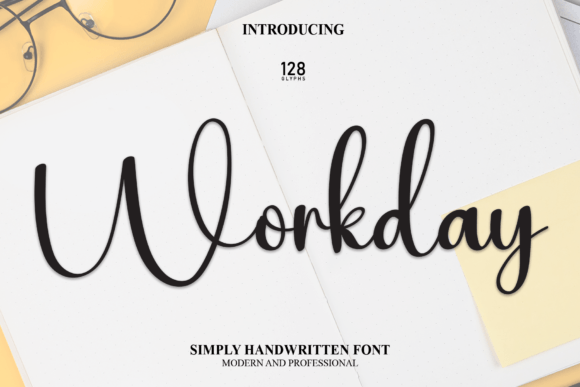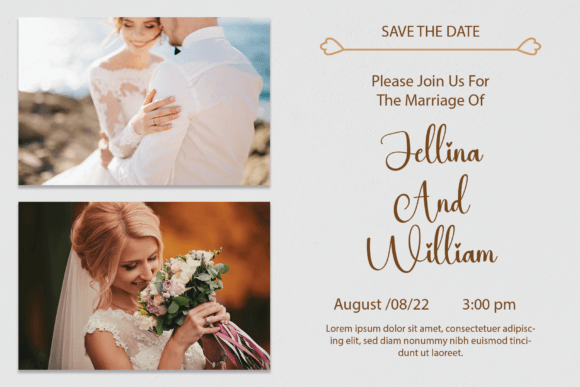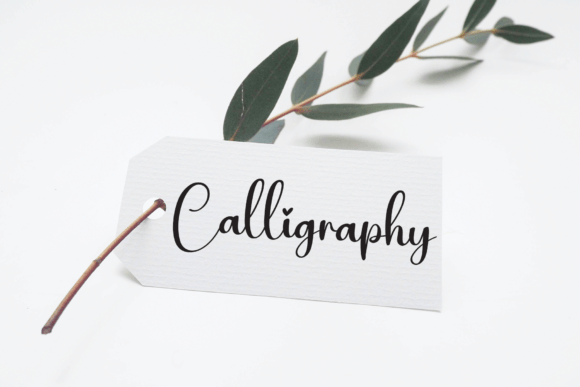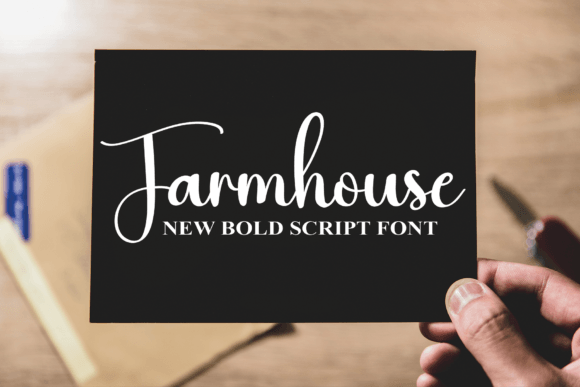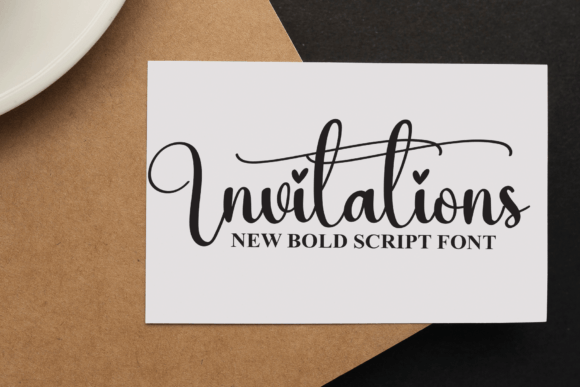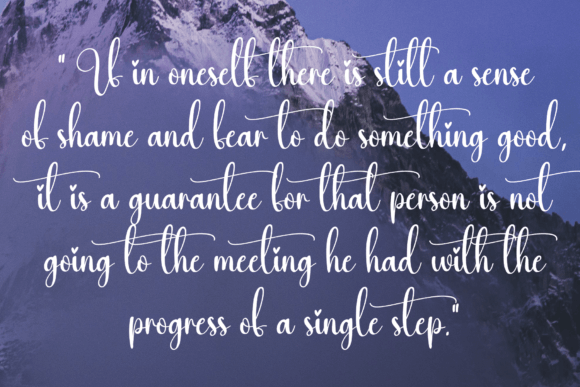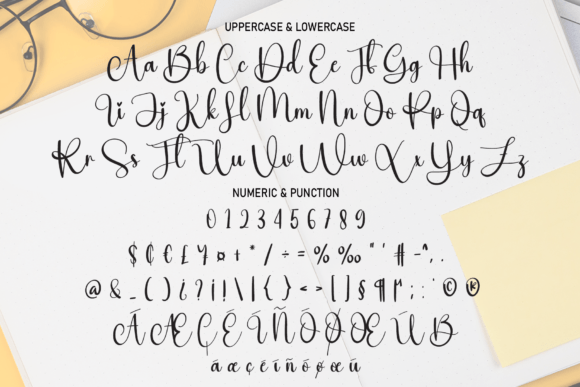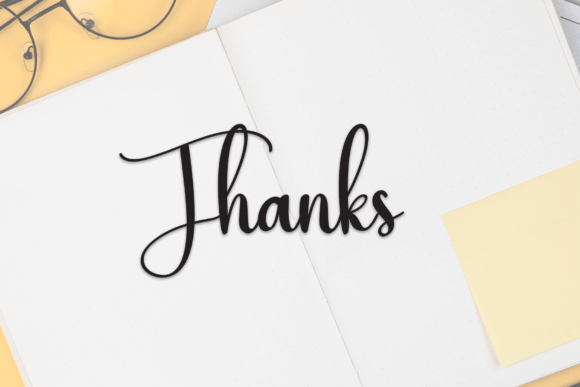
Workday Font
About Workday Font
“Workday’s latest style letters bring together a seamless blend of modernity and handwritten charm, making them an ideal choice for a diverse range of applications. Whether applied to wall displays, wedding invitations, social media post logos, advertisements, product packaging, designs, labels, photography, watermarks, invitations, or stationery, these letters introduce a handwritten touch to any project.
The allure of Workday’s latest style lies in its contemporary design and adaptability, positioning it as a dependable option for various creative endeavors. This font becomes a go-to selection for designers seeking a typeface that effortlessly merges a handwritten aesthetic with a modern twist.
Whether creating eye-catching logos or designing sophisticated wedding invitations, Workday’s latest style stands out as a font that enhances the overall visual appeal. Its letters exude charm and seamlessly adapt to a variety of design contexts.
Imagine Workday’s latest style elevating your projects, introducing a handwritten allure that adds character and uniqueness. The font becomes the defining element that sets your designs apart, creating a visual experience that resonates with authenticity and style.
As you explore the nuances of Workday’s latest style, you’ll discover its potential to transform ordinary projects into visually captivating expressions. Let it be the font that injects a touch of handwritten elegance into your creative vision, making your designs stand out with a delightful and modern aesthetic. With Workday’s latest style, every letter becomes a brushstroke of contemporary sophistication.”